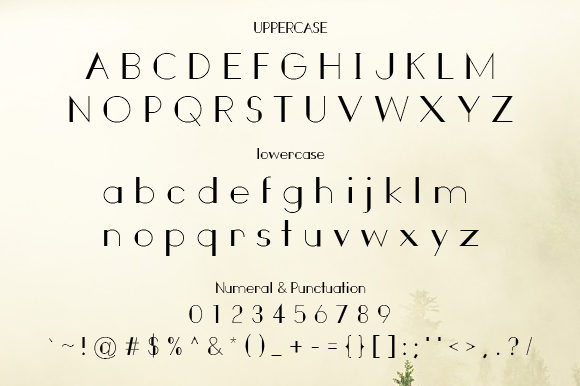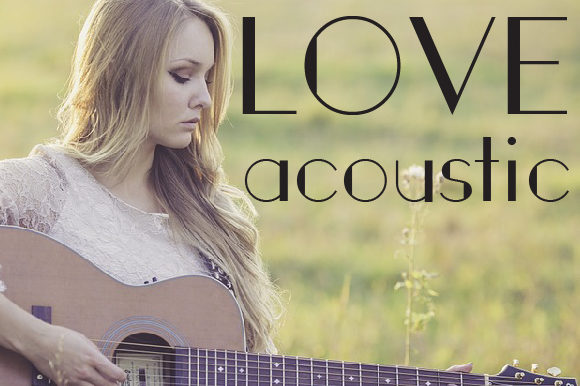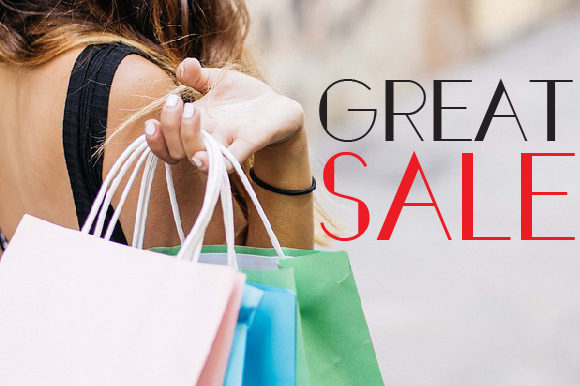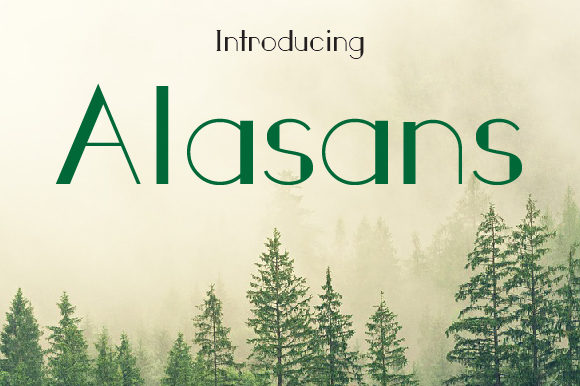
Introducing Alasans Font: The Fresh Sans Serif for Unique Designs
In the world of typography, a new font has emerged to shake things up – Alasans Font. This fresh sans serif font is making waves among designers and crafters alike, and for good reason. The Alasans font is characterized by its unique blend of thick and thin lines, giving it a distinctive touch that’s sure to elevate your designs.
The Story Behind Alasans Font
The Alasans font is the brainchild of a team of designers who sought to create a typeface that would stand out from the crowd. With its clean and modern sans serif design, Alasans Font is perfect for those looking to add a touch of sophistication to their work. But what really sets it apart is its clever use of line weights. The letters are made up of a combination of thick and thin lines, creating a visually interesting effect that’s both elegant and eye-catching.
Key Features of Alasans Font
- Unique Line Weights: The Alasans font features a distinctive combination of thick and thin lines, giving it a one-of-a-kind look.
- Clean and Modern Design: The sans serif design of Alasans Font makes it perfect for a wide range of applications, from digital media to print.
- Highly Versatile: Whether you’re working on a logo, brochure, or website, Alasans Font is the perfect choice for designers and crafters looking to add a touch of elegance to their work.
Uses of Alasans Font
So, what can you use Alasans Font for? The possibilities are endless! Here are just a few ideas to get you started:
- Logo Design: Create a lasting impression with a custom logo featuring Alasans Font.
- Branding Materials: Use Alasans Font to create eye-catching business cards, brochures, and flyers.
- Web Design: Add a touch of sophistication to your website with Alasans Font.
- Social Media Graphics: Stand out on social media with custom graphics featuring Alasans Font.
Why Choose Alasans Font?
With so many fonts to choose from, why should you choose Alasans Font? Here are just a few reasons:
- Unique and Eye-Catching: The Alasans font is sure to turn heads with its distinctive combination of thick and thin lines.
- High-Quality Design: The Alasans font is designed with quality in mind, ensuring that it looks great in any application.
- Easy to Read: Despite its unique design, Alasans Font is easy to read, making it perfect for body text and headlines.
In conclusion, Alasans Font is a game-changer for designers and crafters looking to add a touch of elegance and sophistication to their work. With its unique combination of thick and thin lines, clean and modern sans serif design, and high versatility, Alasans Font is the perfect choice for a wide range of applications. So why wait? Give Alasans Font a try today and see the difference it can make in your designs!